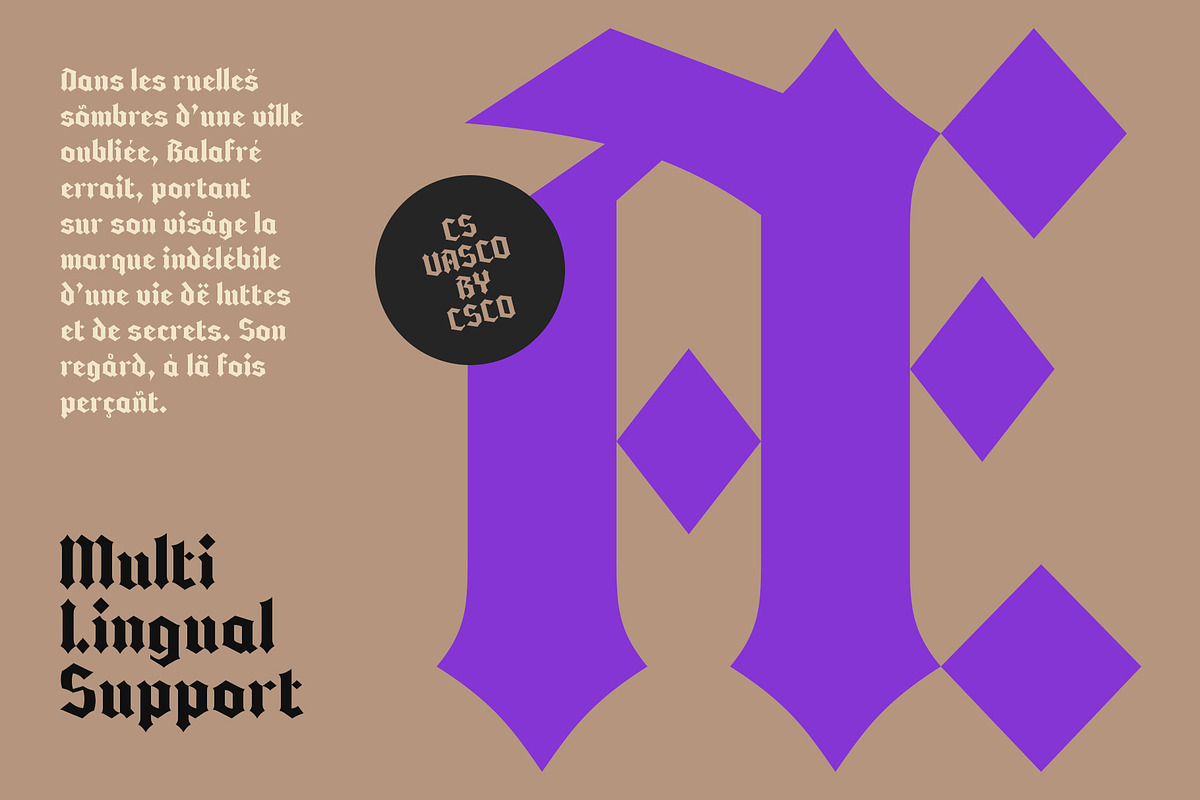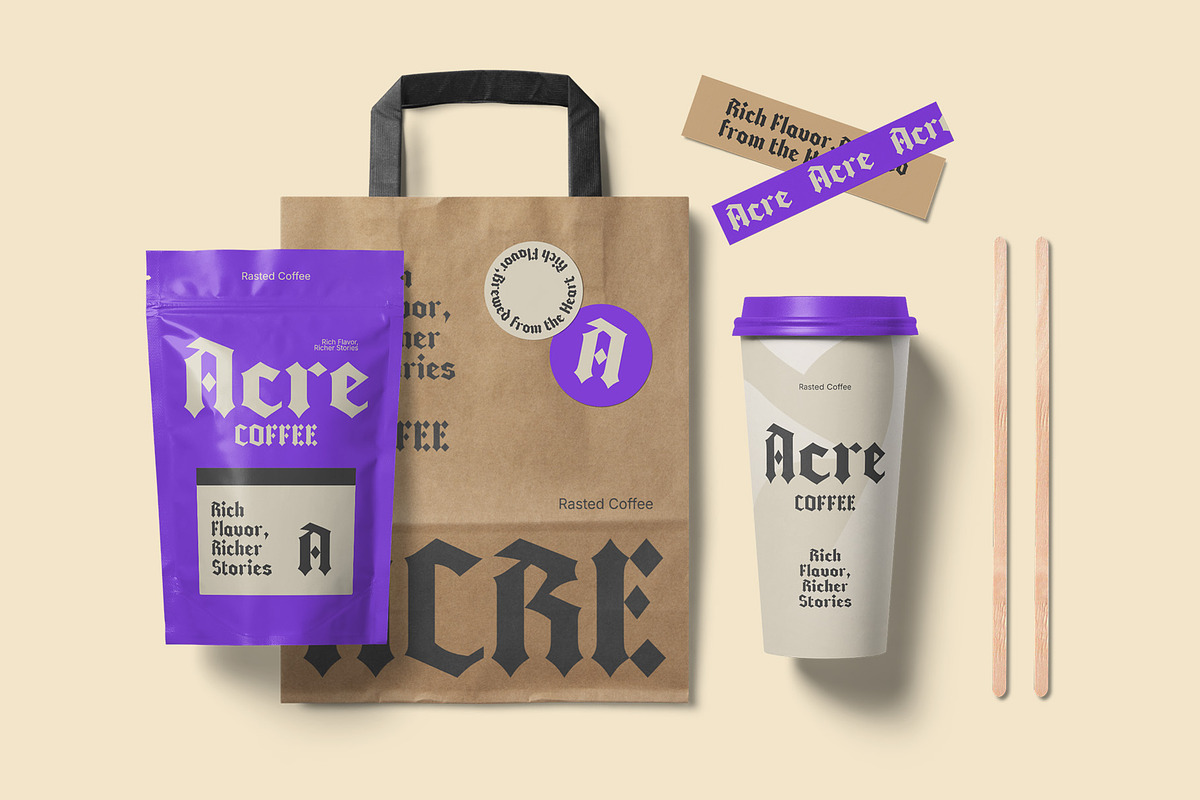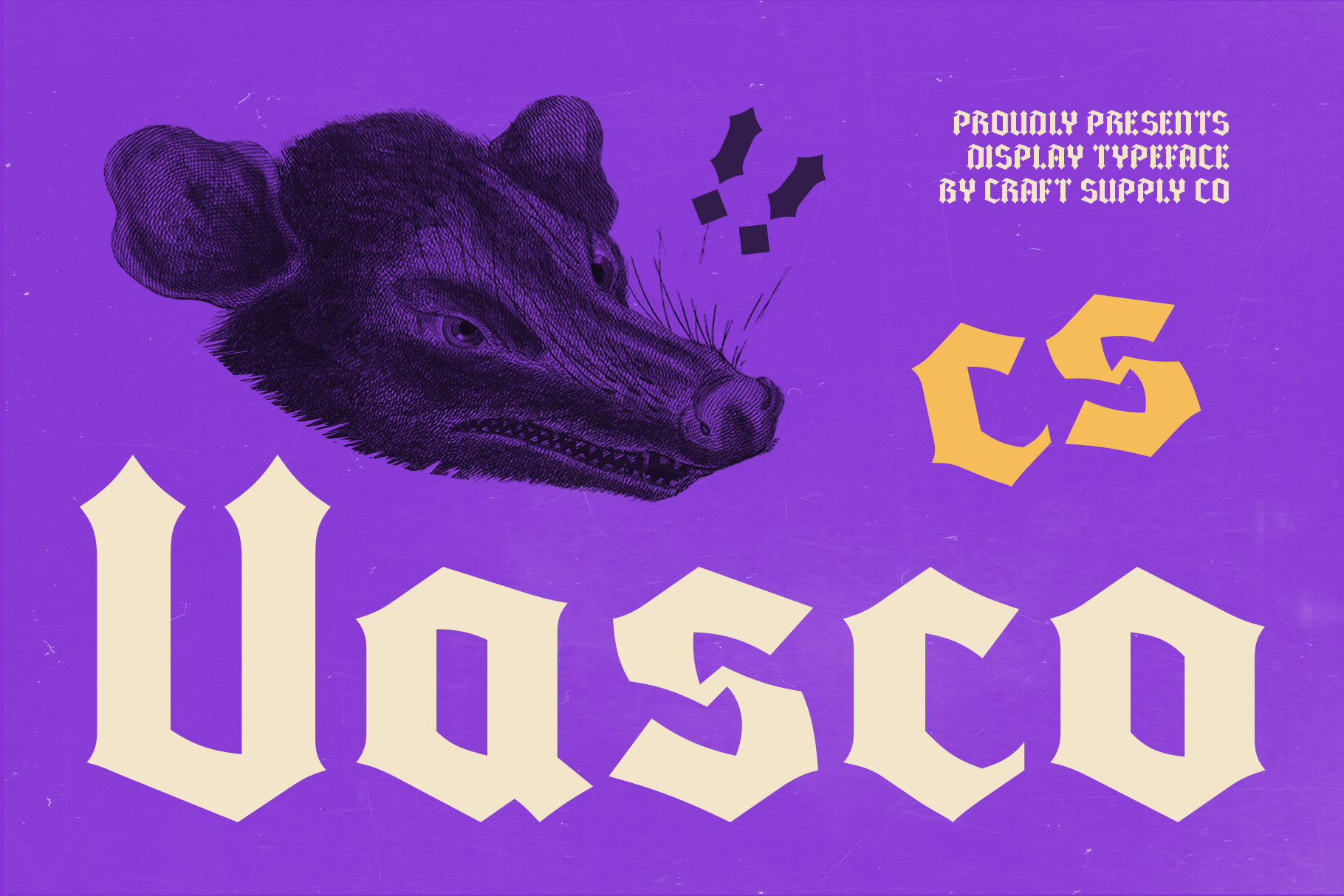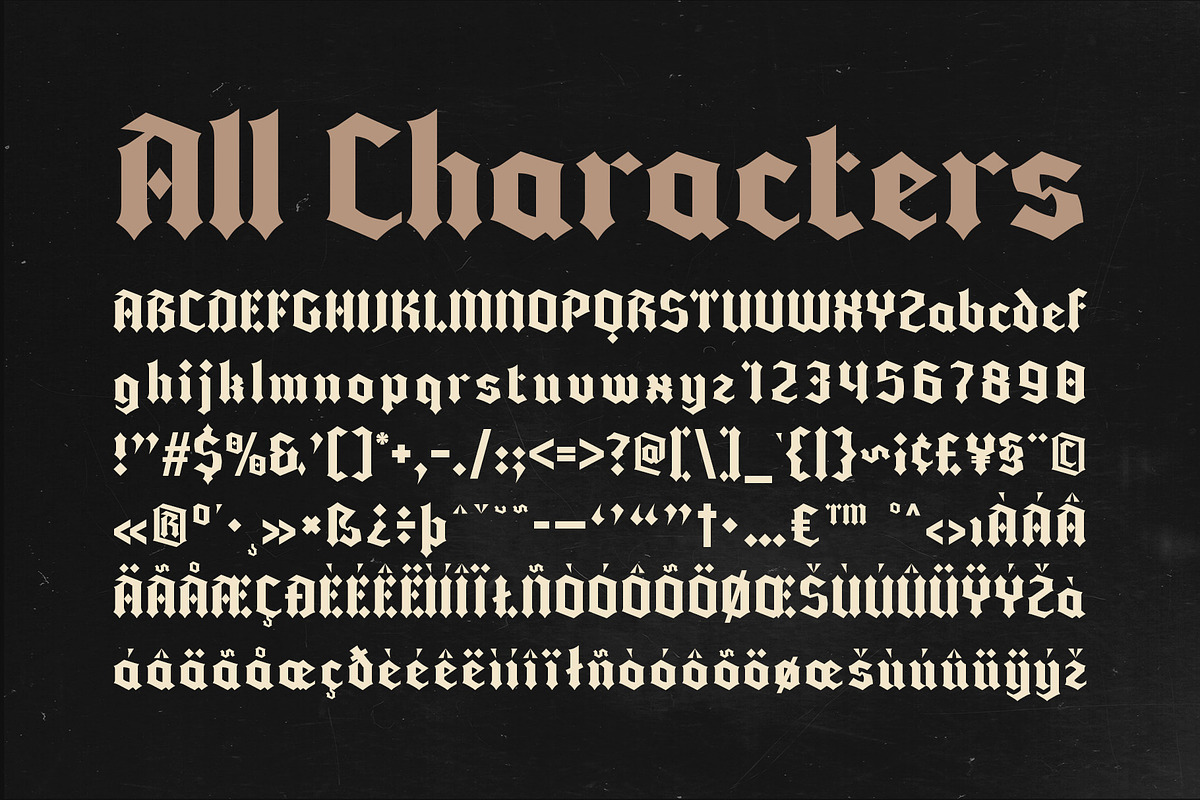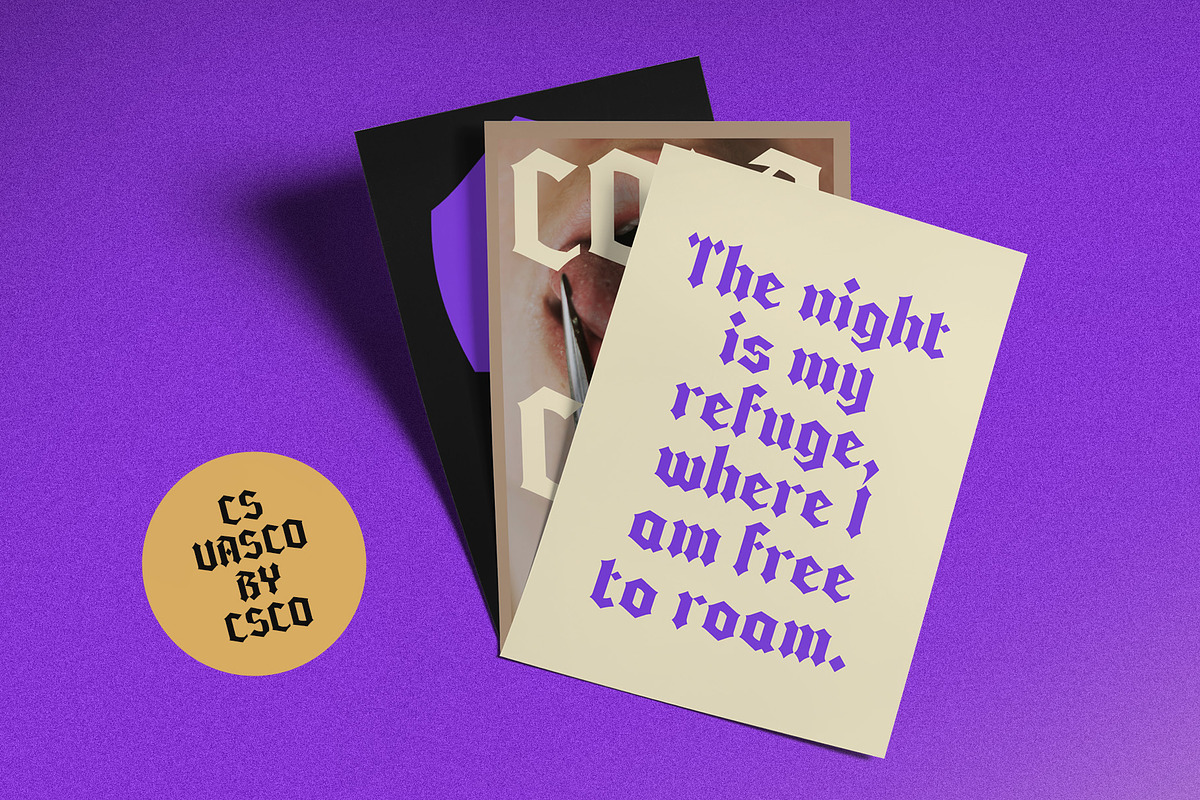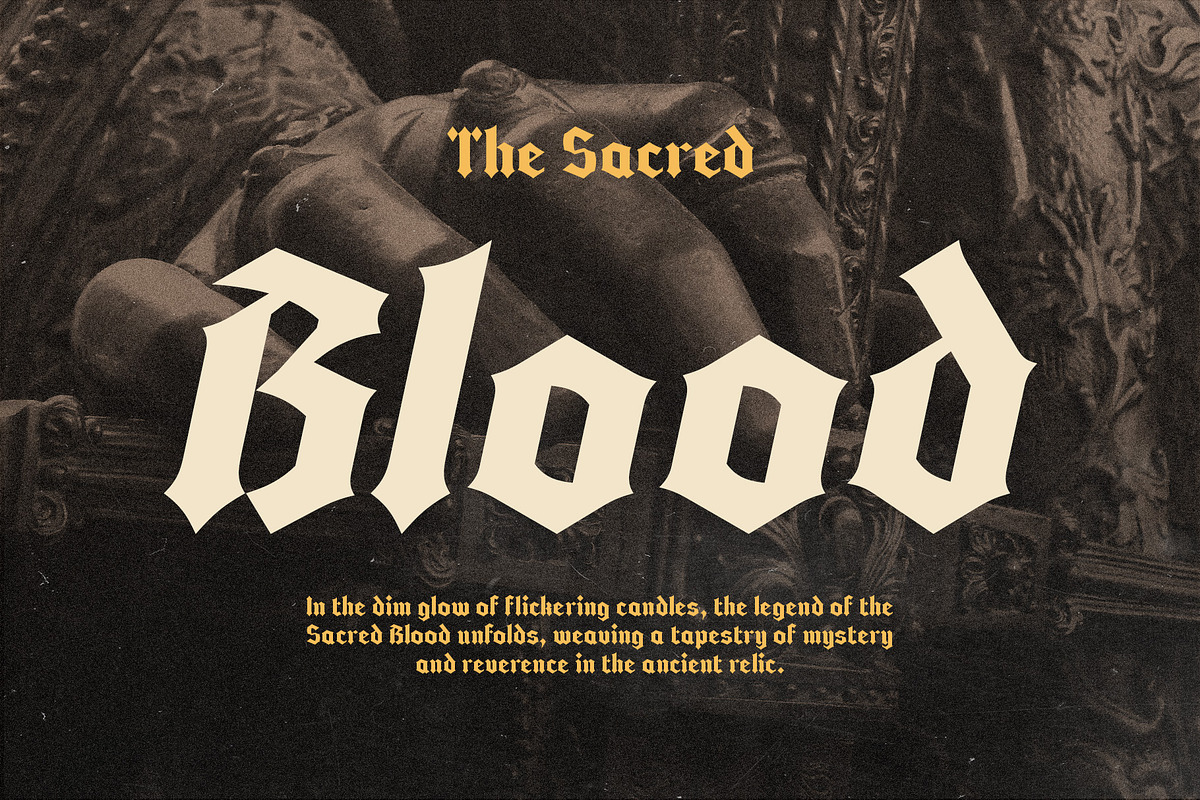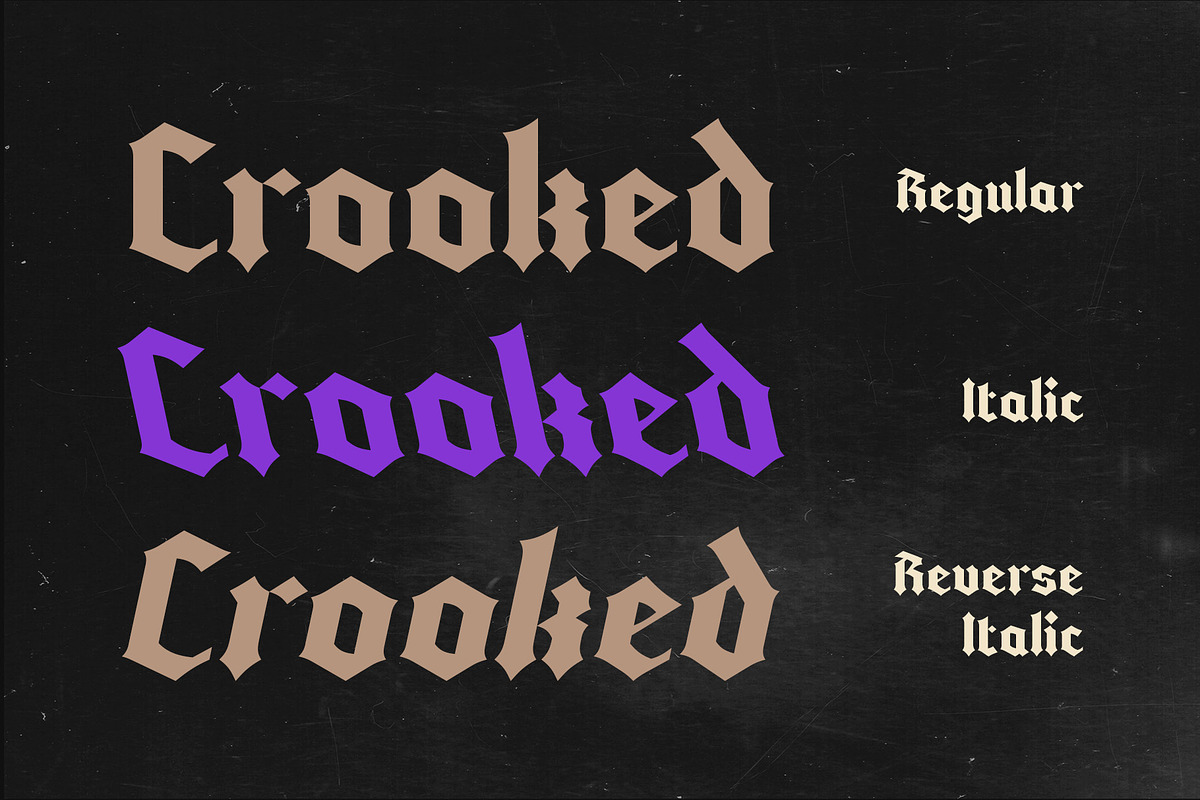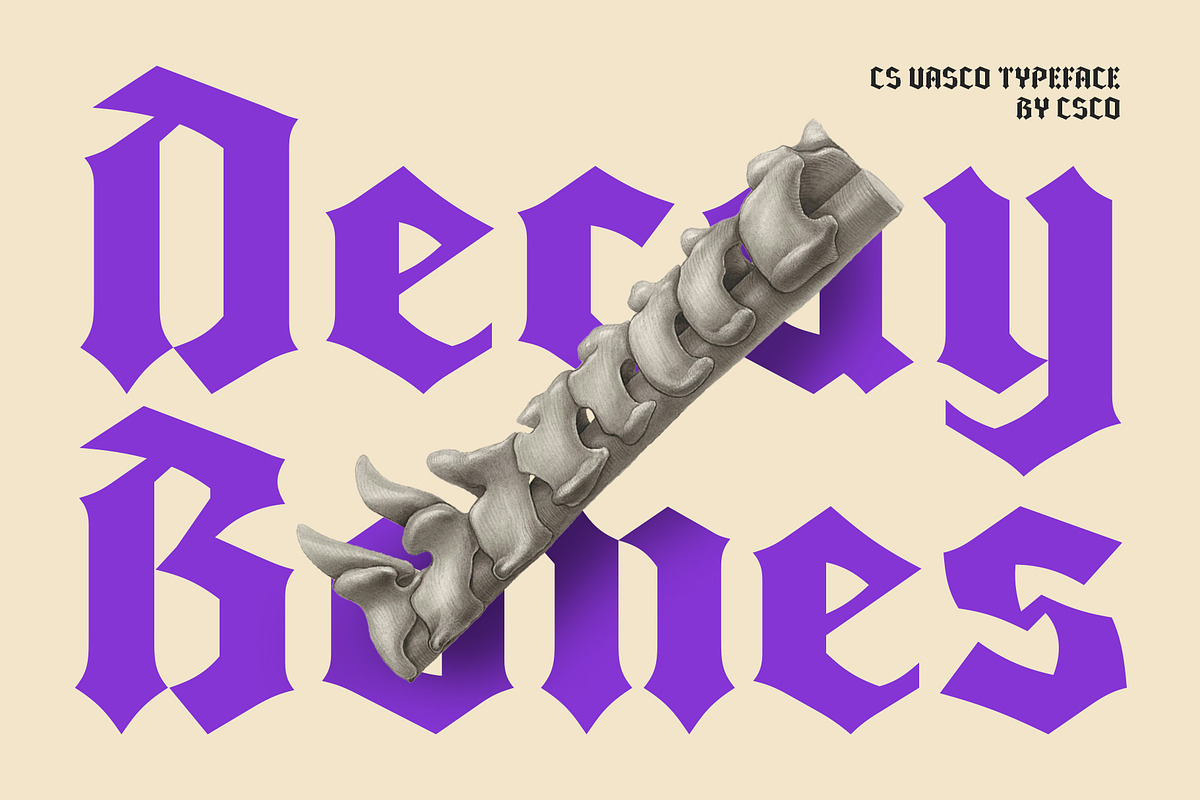
CS Vasco – Blackletter Font
CS Vasco – Blackletter Font: A Timeless Expression of Tradition
Classic Blackletter Display Font CS Vasco is a stunning blackletter display font that captures the essence of historical elegance, often inspired by the intricate handwriting found in ancient manuscripts. Its design features sharp letter shapes and prominent angles, creating a strong and dramatic aesthetic that commands attention. The bold lines of this font impart a sense of authority and gravitas, making it a perfect choice for projects that aim to convey a timeless impression.
Distinctive Characteristics of Blackletter The unique characteristics of CS Vasco set it apart in the realm of typography. With its thick lines and angular forms, this font embodies the rich tradition of blackletter style, often associated with medieval art and literature. Each letter is meticulously crafted to reflect the artistry of the past while remaining highly legible, allowing for a striking visual impact without sacrificing readability.
Versatile Applications for a Formal Atmosphere CS Vasco is ideal for a wide range of applications where a formal or historical atmosphere is desired. Commonly used in formal invitations, event posters, and branding materials, this font enhances the overall design by adding a touch of mystery and grandeur. Whether for a gala event, a literary publication, or any design that celebrates tradition, CS Vasco effectively communicates a sense of heritage and sophistication.